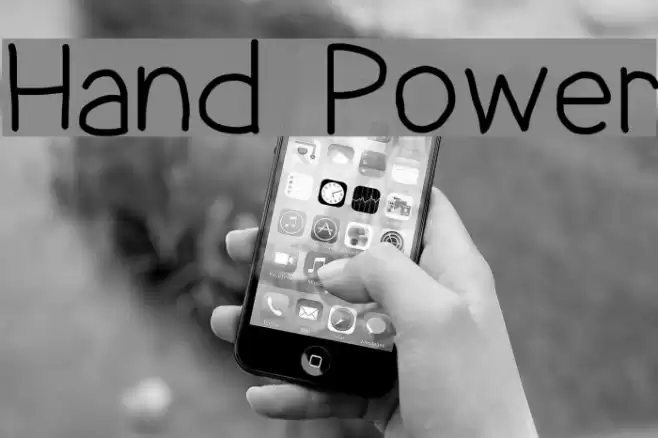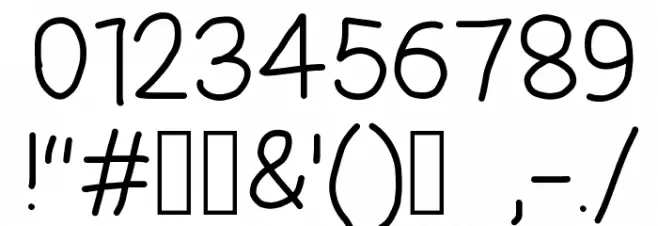
Hand Power Font
Hand Power Description
This font features a playful and casual handwritten style, characterized by its rounded and slightly irregular letterforms. The strokes are consistent in weight, giving it a uniform appearance while maintaining a natural, hand-drawn feel. The uppercase letters are tall and slightly narrow, while the lowercase letters are more rounded and open, contributing to its approachable and friendly look. The numerals and special characters follow the same design principles, ensuring cohesion across all glyphs. This font is well-suited for projects that require a personal touch or a sense of informality.
A playful, handwritten font with rounded, consistent strokes and a casual feel from Uncategorized fonts.
- Proposed Projects: Ideal for greeting cards, children's books, casual branding, and social media graphics.
- Overall Style: Casual
- Use Case: Headlines, Informal text, Branding